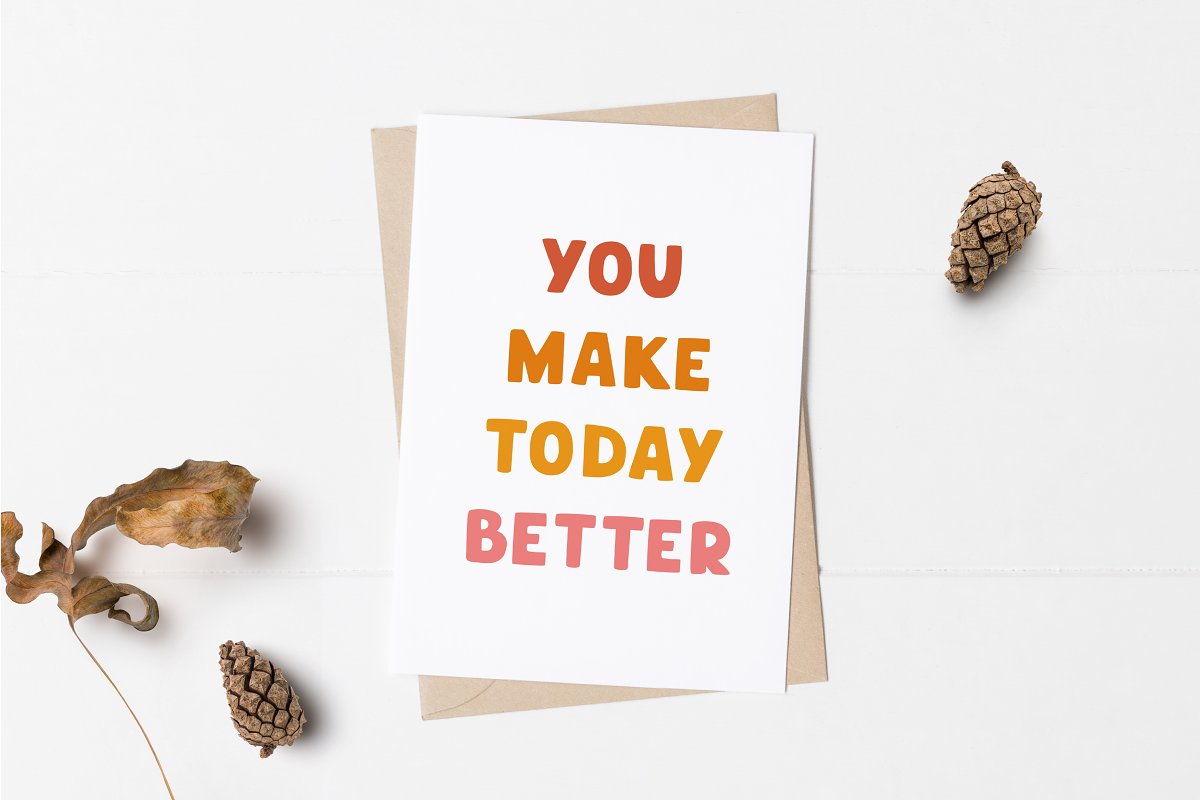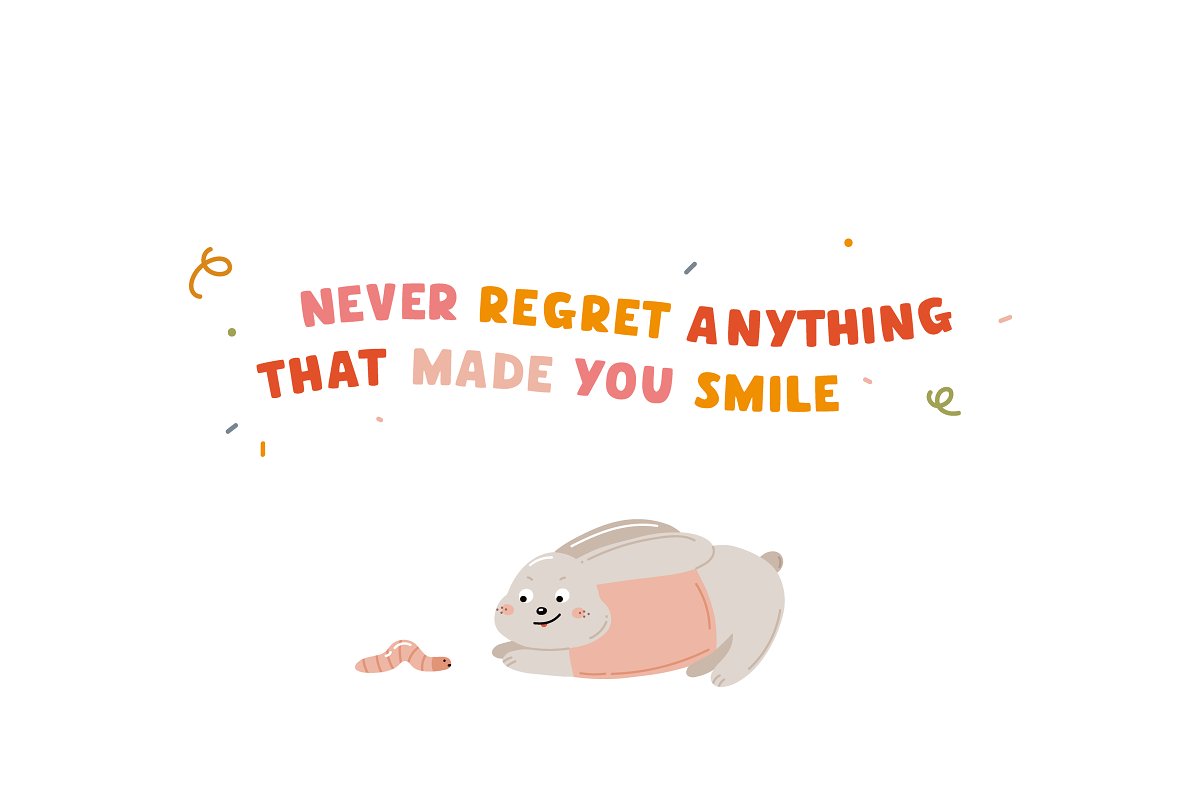
About the Little friends Hand drawn Font
Little friends – playful hand-drawn typeface, Use for logos, quotes, invitations, greeting cards, journals, posters, baby clothing and more, This font will make your design looks great and fun!You will get:LittleFriends, otf75 clipart (AI, EPS, PNG with transparent background)8 Seamless patterns (AI, EPS, PNG)6 Pre-made maps (AI, EPS, JPEG, PNG with transparent backgroundHave fun creating! Julia